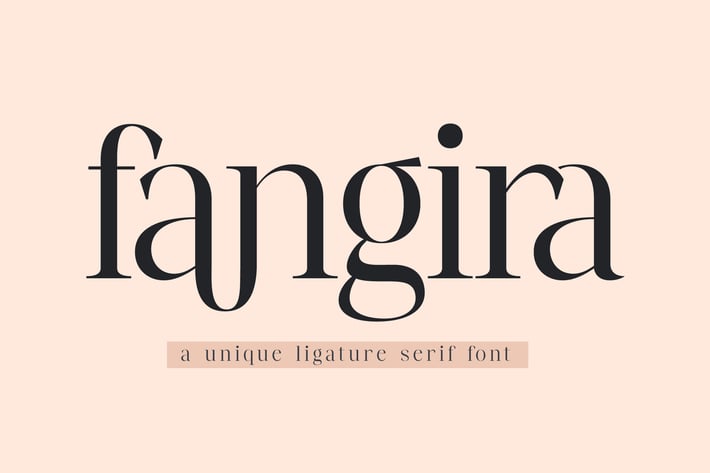
Fangira Unique Serif Font
Fangira is a unique ligature serif font that blends modern sophistication with timeless elegance. Designed with distinctive letter combinations and refined curves, this font is ideal for high-end branding, editorial layouts, luxury packaging, wedding invitations, and fashion-related projects. Its harmonious balance of classic and contemporary elements makes Fangira an excellent choice for designers who seek a stylish and artistic typeface.
- Elegant Ligatures & Alternates – Enhances letter connections for a refined look
- Modern Serif Design – Suitable for fashion, beauty, and creative projects
- High-End Aesthetic – Perfect for luxury branding and editorial layouts
- Multilingual Support – Covers multiple international characters
- Optimized for Digital & Print – Ensures crisp and professional typography
- Complete Character Set: Uppercase, lowercase, numerals, punctuation, and ligatures